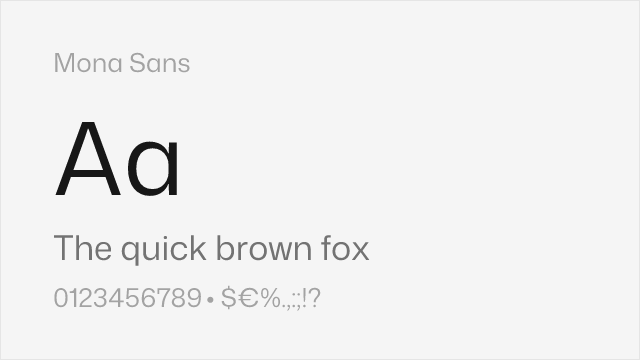
Free Alternatives to Calibre for Branding
Looking for a free sans serif font for branding projects? Calibre by Klim Type Foundry is a popular choice, but its licensing cost can be prohibitive. We've curated 10 free alternatives that work well in branding contexts. We've identified 3 that are especially well-suited for this context. Each alternative is scored by visual similarity and contextual relevance, and ships under an open-source license for both personal and commercial use.
#1 Geist 82% Relevant
Modern system font with similar tech-forward aesthetics and tight, efficient proportions
Why it matches: Geist shares Calibre's tight, efficient proportions and tech-sector positioning. Both typefaces were designed with developer tools and product interfaces in mind, featuring controlled letter-spacing and a rationalized construction that handles both marketing copy and UI labels with equal authority. Geist's slightly sharper terminals and more angular construction give it a more technical edge than Calibre's smoother grotesque forms, but the overall feeling in a SaaS product context is remarkably similar. Both prioritize information density over typographic openness.
#2 DM Sans 80% Relevant
Clean geometric-grotesque blend with modern proportions that echo Calibre's contemporary feel
Why it matches: DM Sans shares Calibre's position at the intersection of geometric precision and grotesque warmth. Both avoid the extremes of either tradition, creating a modern middle ground that reads as contemporary and professional. DM Sans is slightly rounder in its bowls and more open in its counters, giving it a friendlier personality than Calibre's more compact, utilitarian stance. The `o`, `e`, and `a` shapes are structurally compatible, and both typefaces handle the demands of tech branding — product interfaces, marketing pages, documentation — with comparable clarity.
#3 Work Sans 78% Relevant
Mature editorial sans with American gothic warmth and comprehensive weight range
Why it matches: Work Sans shares Calibre's workhorse philosophy — both are designed to handle any typographic task without drawing attention to themselves. The functional overlap is strongest in editorial and branding contexts, where both typefaces provide clean, reliable hierarchy from Thin headlines to Regular body text. Work Sans leans slightly more toward the humanist end with softer stroke terminals, which adds warmth at body sizes where Calibre remains more clinical. The weight distribution is well-matched, with both offering smooth ramps from Thin to Black.
#4 Mona Sans 72%
GitHub variable sans with weight and width axes
#5 Inter 85%
Closest overall match with comprehensive variable font support and similar screen-first optimization
Why it matches: The most important difference between these two typefaces is proportional width. Calibre is notably tighter and more condensed than Inter — Kris Sowersby designed it to pack maximum content per line, a quality that makes Calibre exceptional in dense UI patterns like SaaS dashboards, data tables, and sidebar navigation where every pixel of horizontal space counts. Inter is wider-set and more generously spaced, which makes it more comfortable for body text and long-form reading but less efficient in the space-constrained layouts where Calibre thrives. Sowersby's design philosophy is utilitarian precision — stripping a grotesque to its functional minimum. Inter's philosophy under Rasmus Andersson is broader accessibility — making a screen font that works for everyone. This means Inter substitutes well for Calibre in marketing pages, documentation, and general product typography, but layouts originally designed around Calibre's compact metrics will need spacing adjustments when switching to Inter's wider set width.
#6 General Sans 75%
Clean neo-grotesque from Fontshare
#7 Barlow 74%
Slightly condensed grotesque with utilitarian character that echoes Calibre's space efficiency
Why it matches: Barlow shares Calibre's utilitarian, space-efficient approach to sans-serif design. Both typefaces feature slightly condensed proportions that pack more content per line without feeling explicitly narrow. Barlow's Californian heritage gives it a slightly different regional character than Calibre's New Zealand-designed precision, but the functional overlap in tech branding and editorial contexts is substantial. Both handle data tables, navigation systems, and dense information layouts with comparable clarity. The comprehensive weight range from Thin to Black supports the same typographic hierarchies.